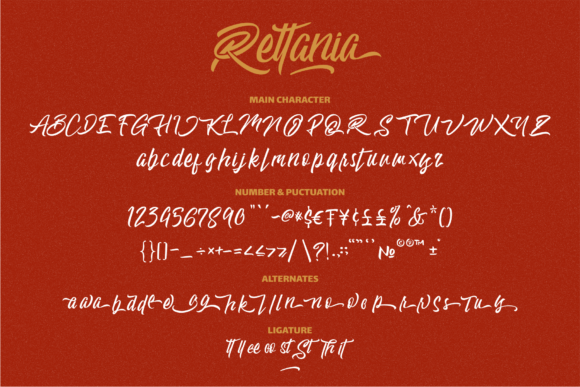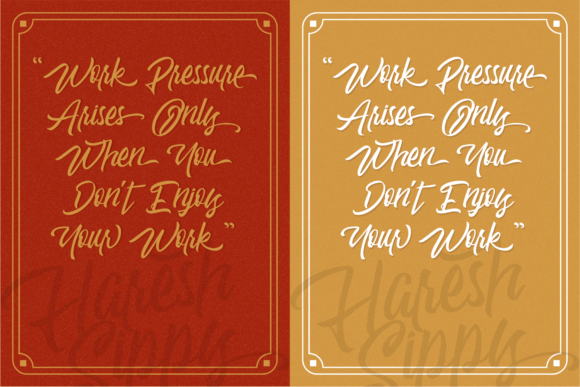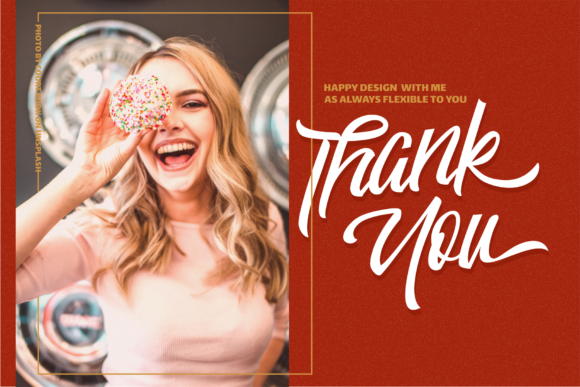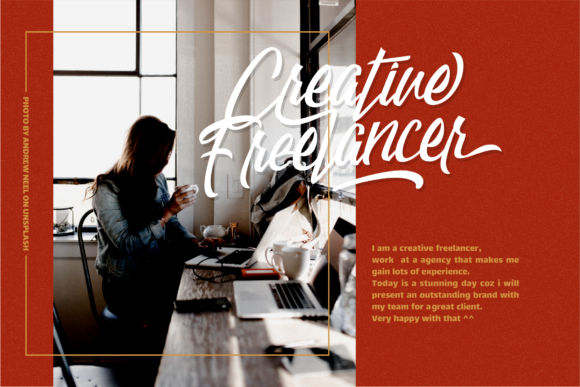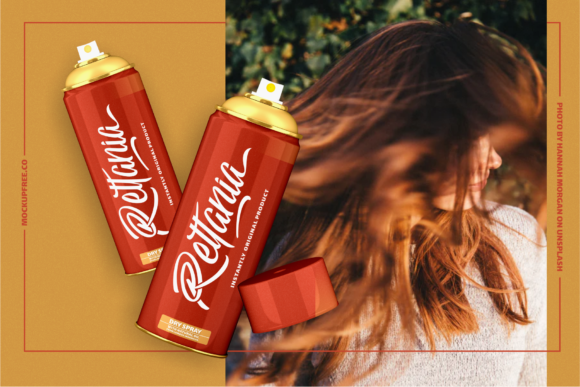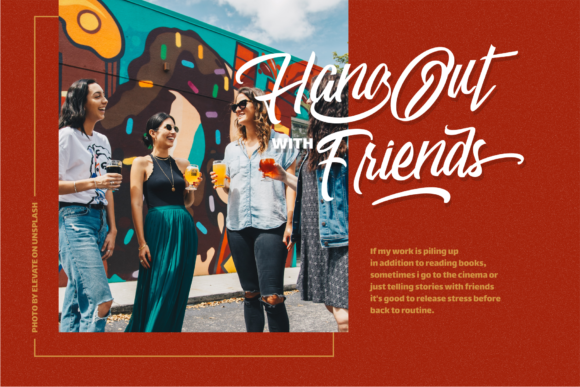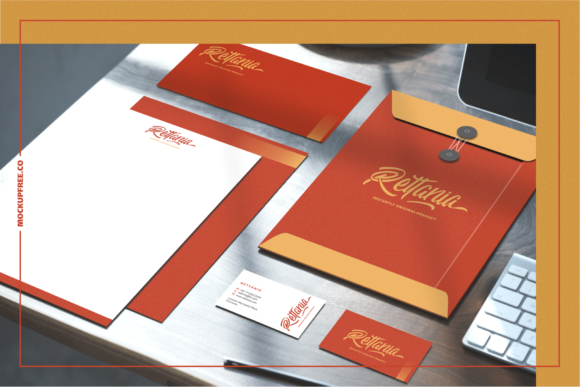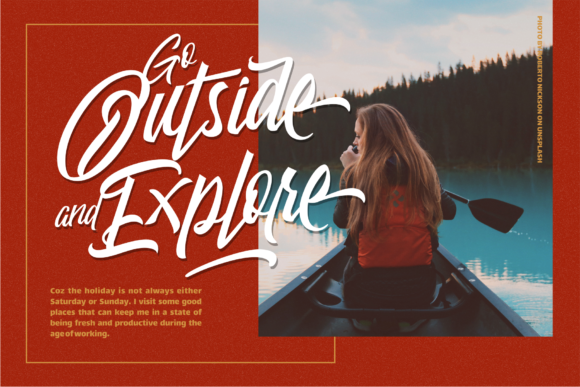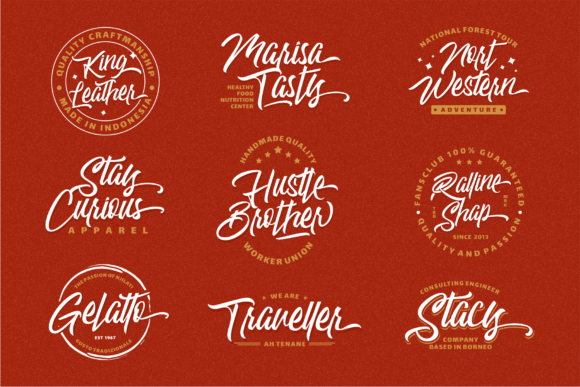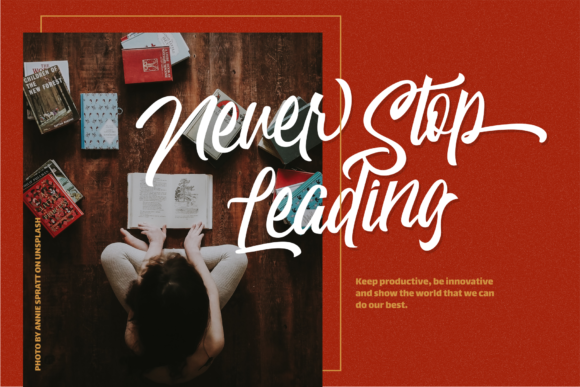
Rettania Font
About Rettania Font
Rettania is a playful and elegant script font with incredibly unique letters. It feels dynamic, yet sophisticated, which makes it the perfect font for a wide range of design projects.